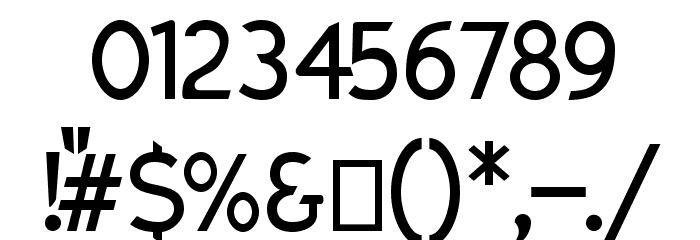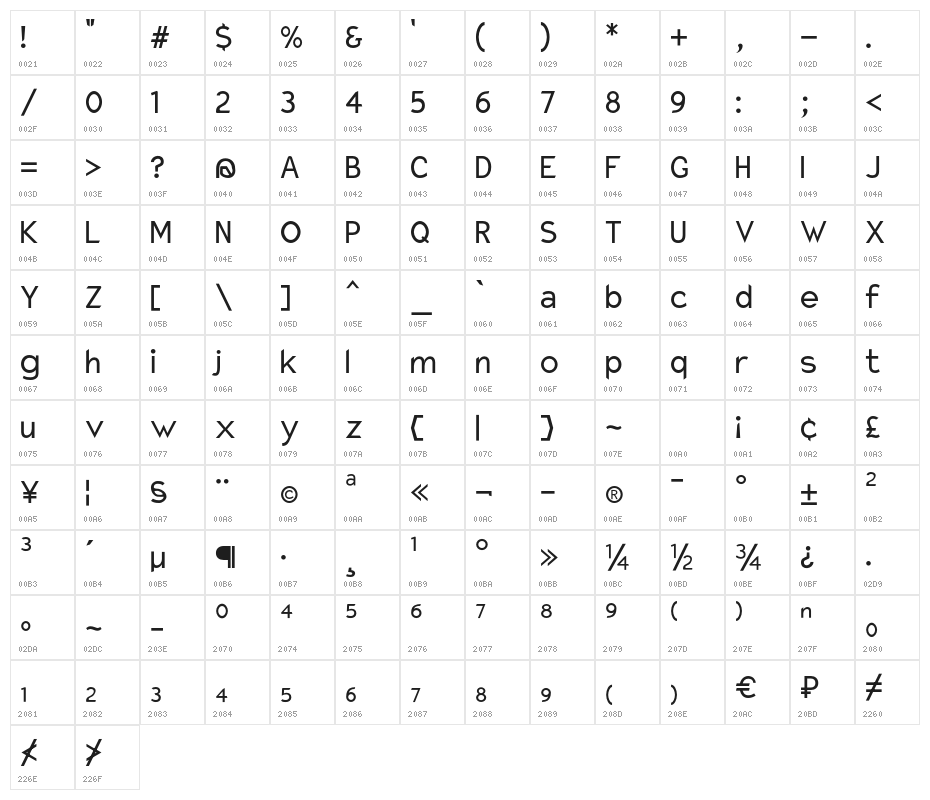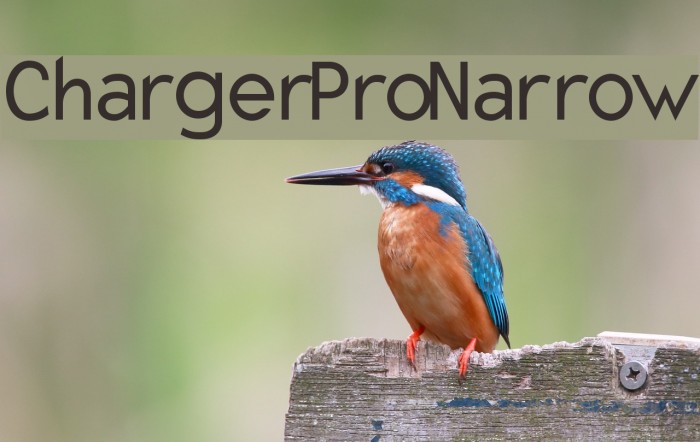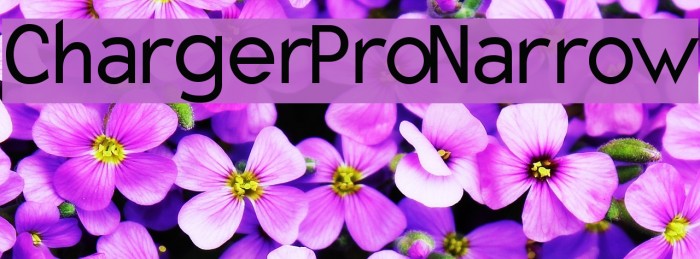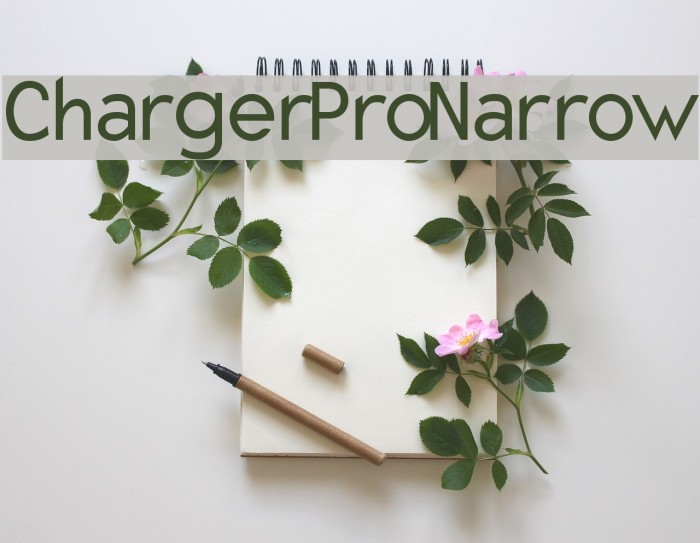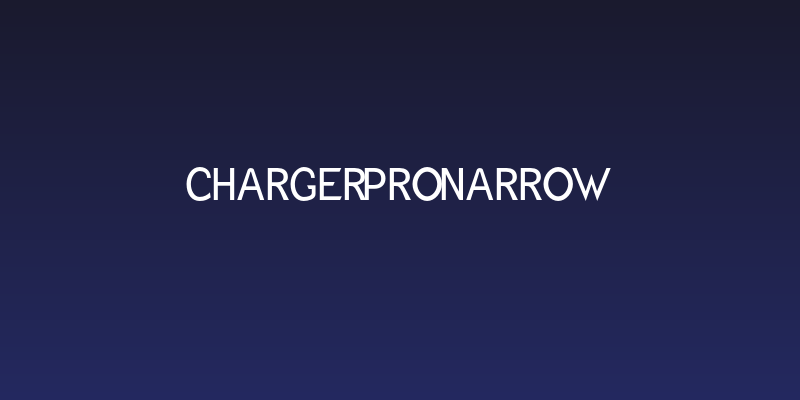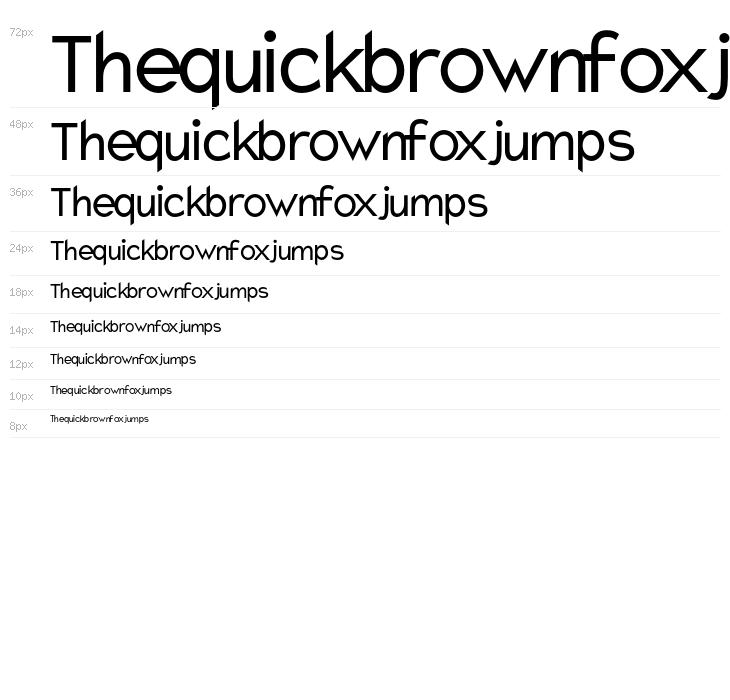
Charger Pro Narrow Font
Charger Pro Narrow Description
This font features a clean and modern sans-serif design with a narrow width, making it ideal for compact spaces. The characters are well-proportioned with a consistent stroke width, offering a sleek and professional appearance. The uppercase and lowercase letters maintain a uniform style, while the numerals are clear and easily distinguishable. The special characters are designed with simplicity, ensuring readability across various applications. Its geometric shapes and minimalistic approach make it suitable for contemporary design projects.
Use CaseHeadlines, Body text, Logos
Proposed ProjectsIdeal for branding, editorial design, web interfaces, and corporate materials.